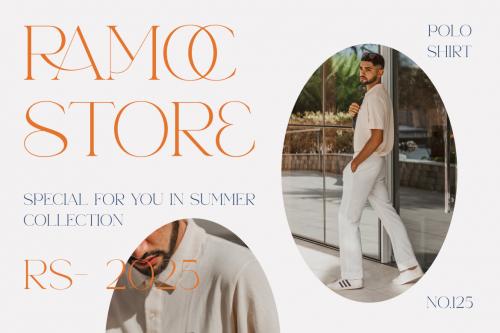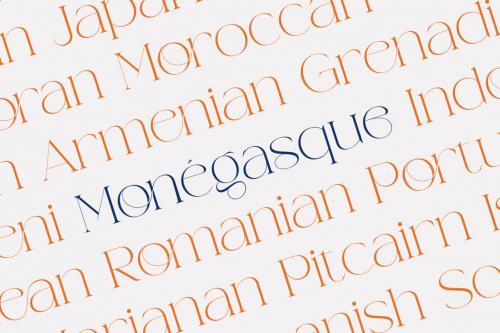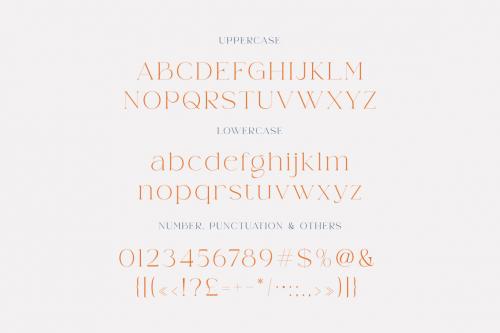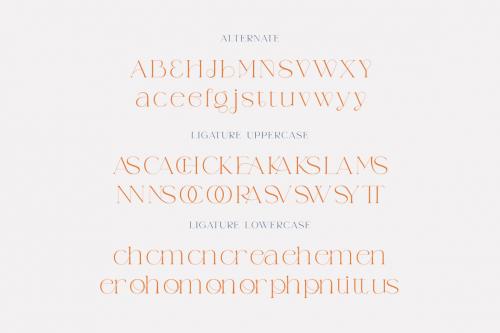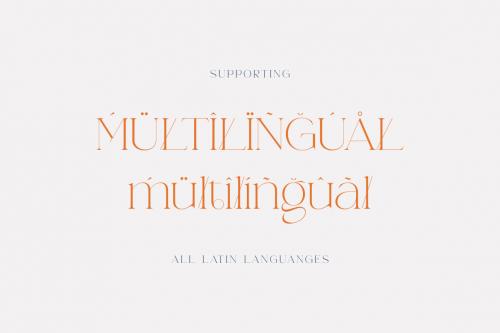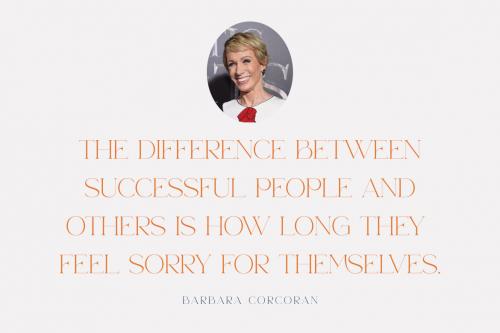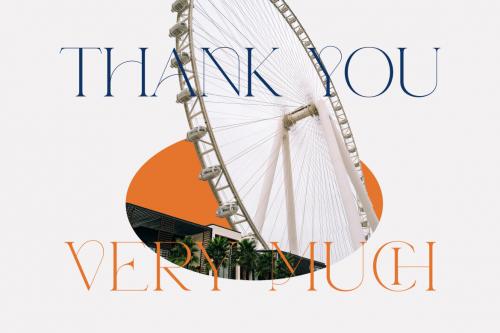
Deeezy - Weaser Modern Serif
Trendy, elegant, modern & retro style sans serif font for your new modern projects. Luxury, artistic, fancy and fashion style on Weaser font will be great for any branding project. Lot of alternates and ligatures will help you to create unique and original logo design or website header! Enjoy :)